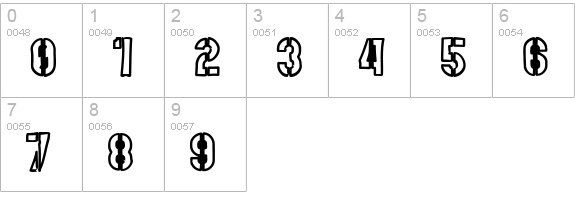
Mute Fruit Black Krash Font Details
Mute Fruit Black Krash is a maximum-weight, dramatic variant in the Mute typeface family \xE2\x80\x94 well suited to maximum-impact headlines, posters, and packaging.
Mute Fruit Black Krash font is a bold and striking typeface that demands attention with its unique design and powerful presence. Its sharp edges and edgy style make it perfect for making a statement in headlines, posters, and branding materials. The font exudes a modern and futuristic vibe, making it ideal for projects that require a contemporary touch. What sets Mute Fruit Black Krash font apart is its versatility and ability to stand out in a crowded space. Whether used in print or digital media, this font is sure to leave a lasting impression on viewers. Its strong visual impact is enhanced by the contrast between thick and thin strokes, creating a dynamic and engaging look. The best part about Mute Fruit Black Krash font is that it is free to download at FontsMarket.com. This means that you can easily access this eye-catching typeface and use it in your projects without any cost. Don't miss out on the opportunity to enhance your designs with this striking and expressive font. Download Mute Fruit Black Krash today and take your typography to the next level!